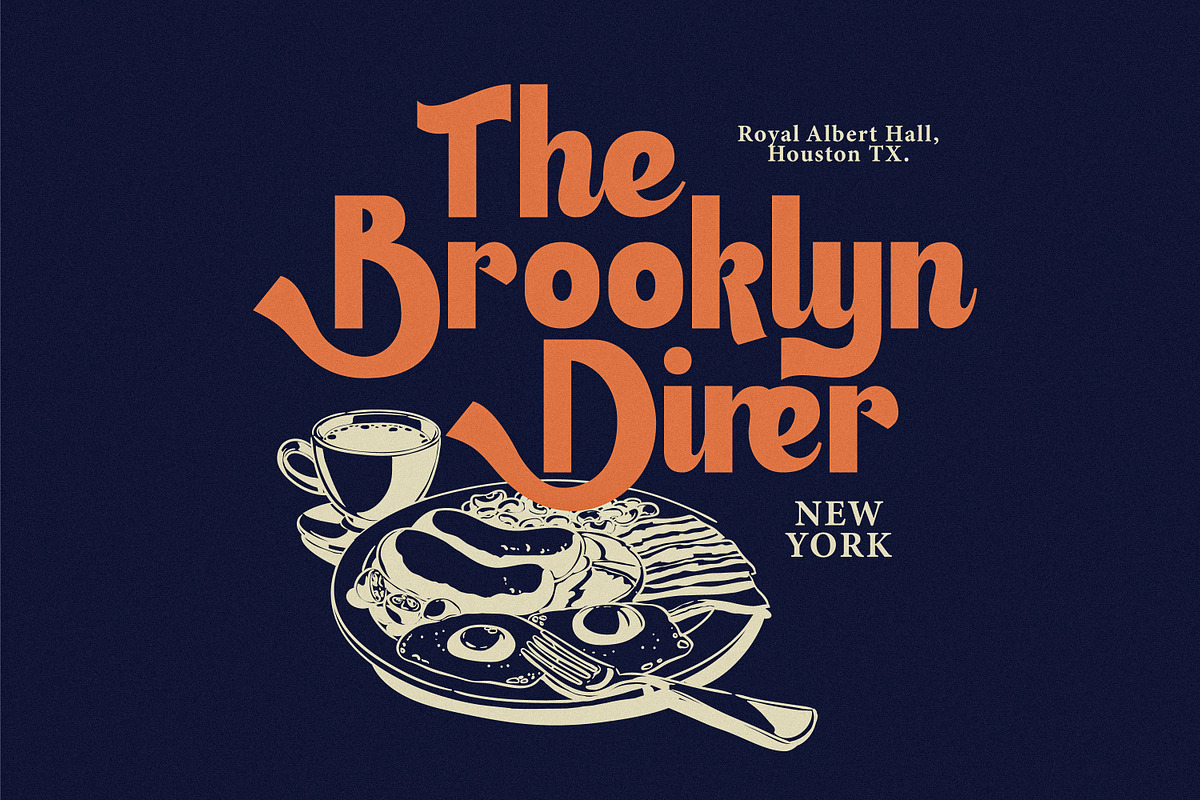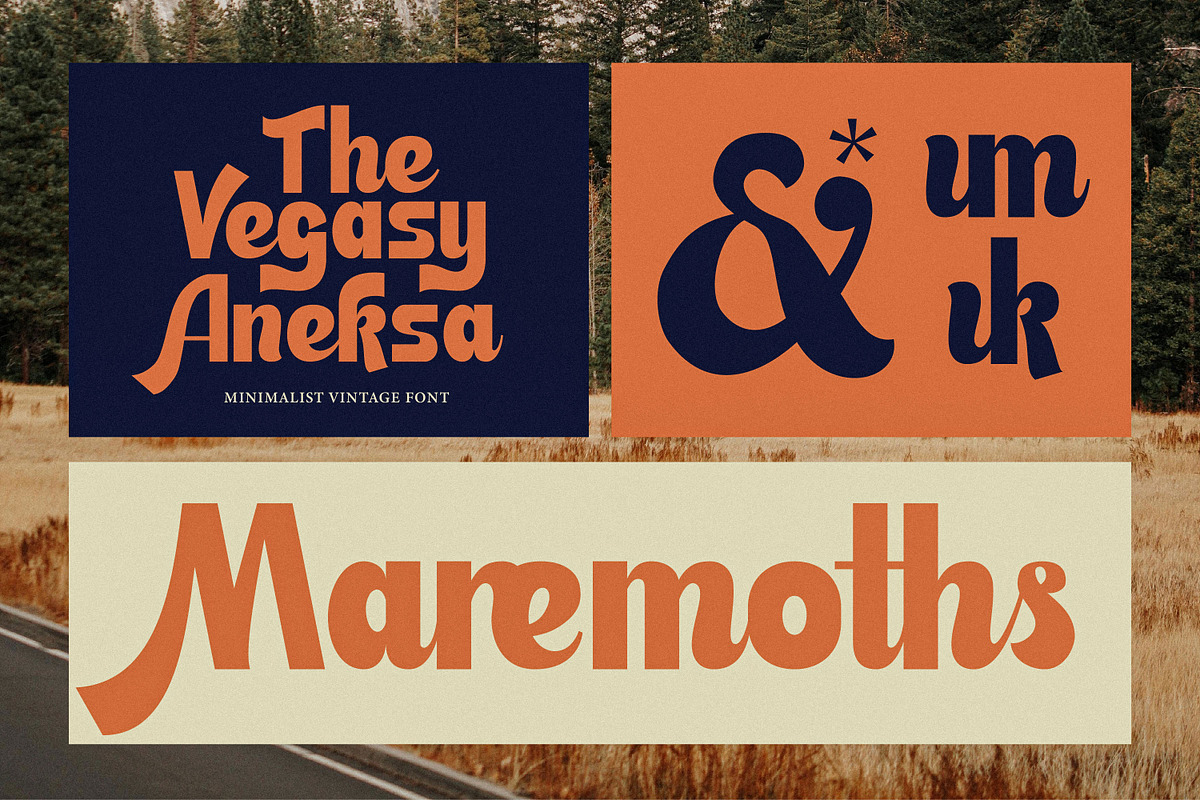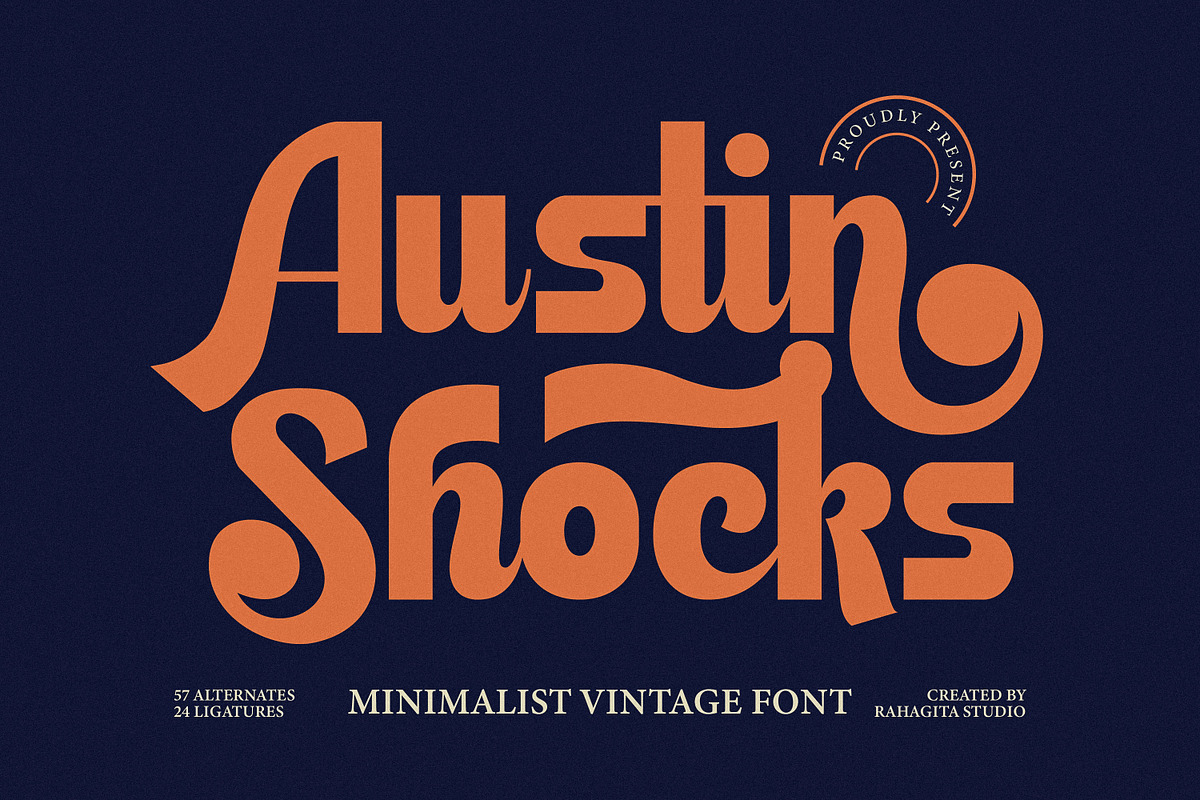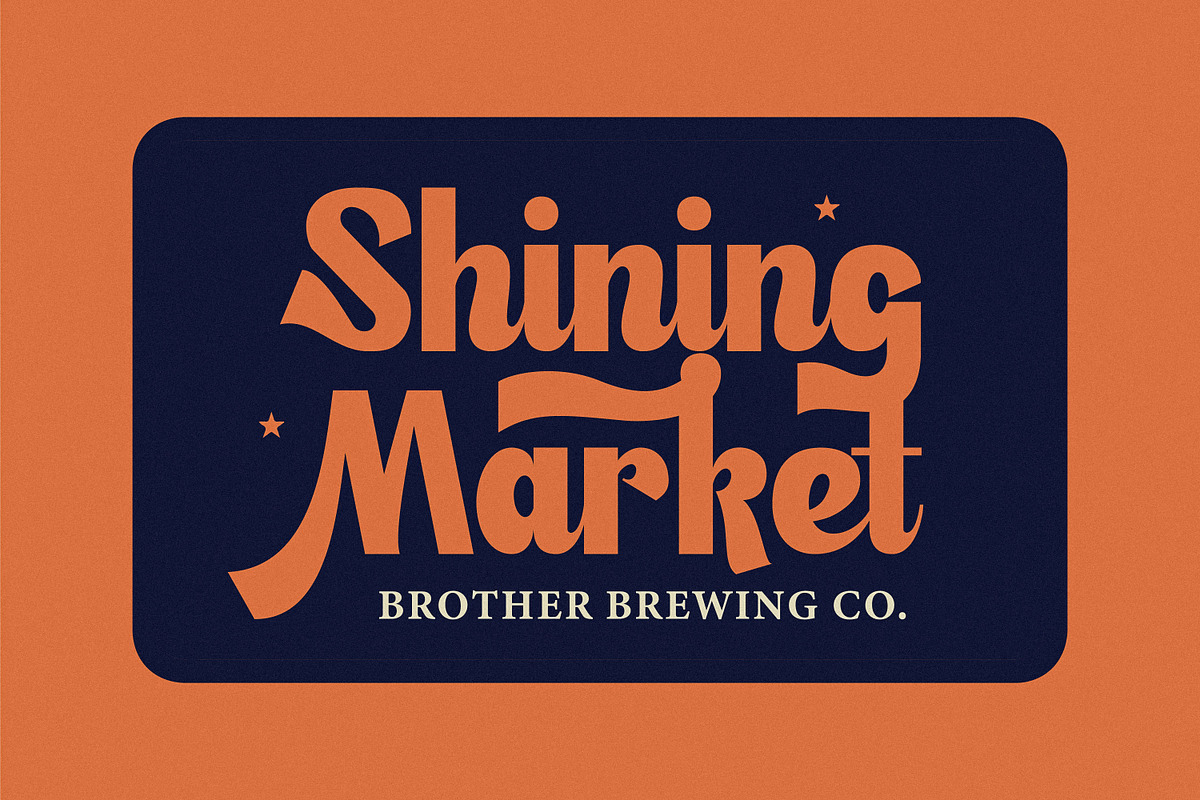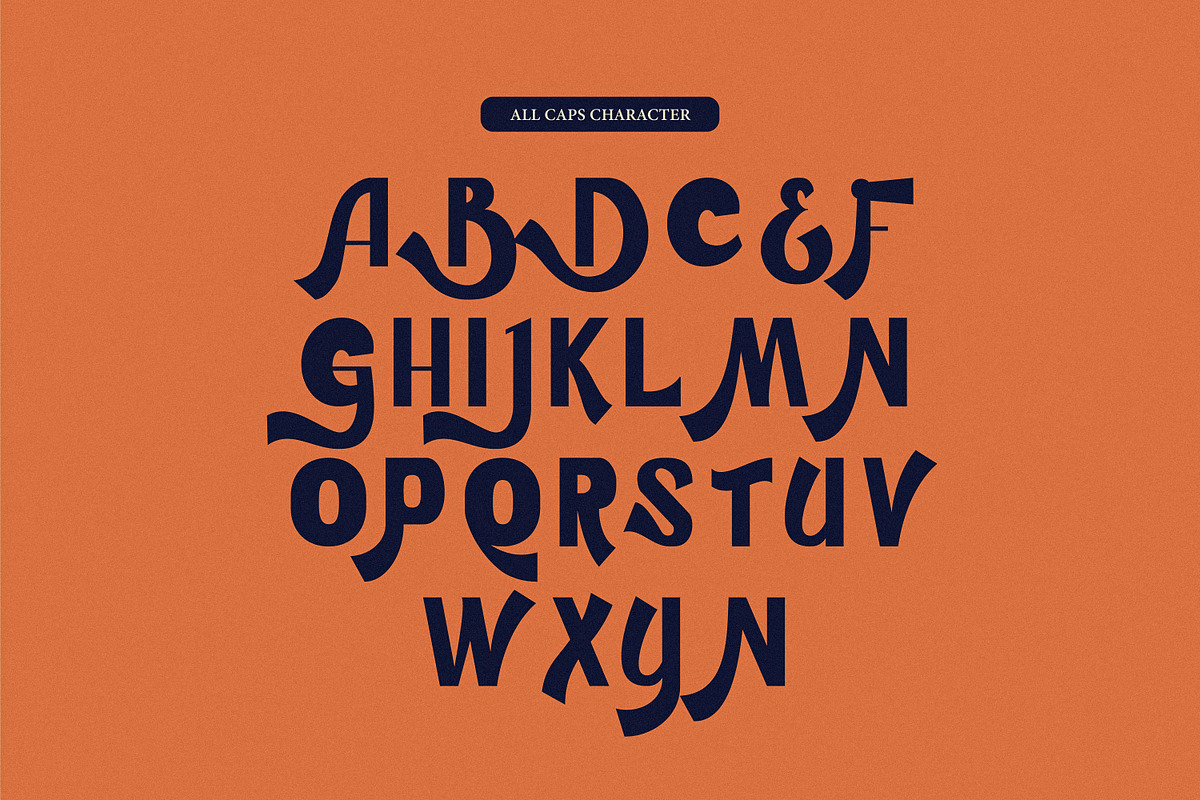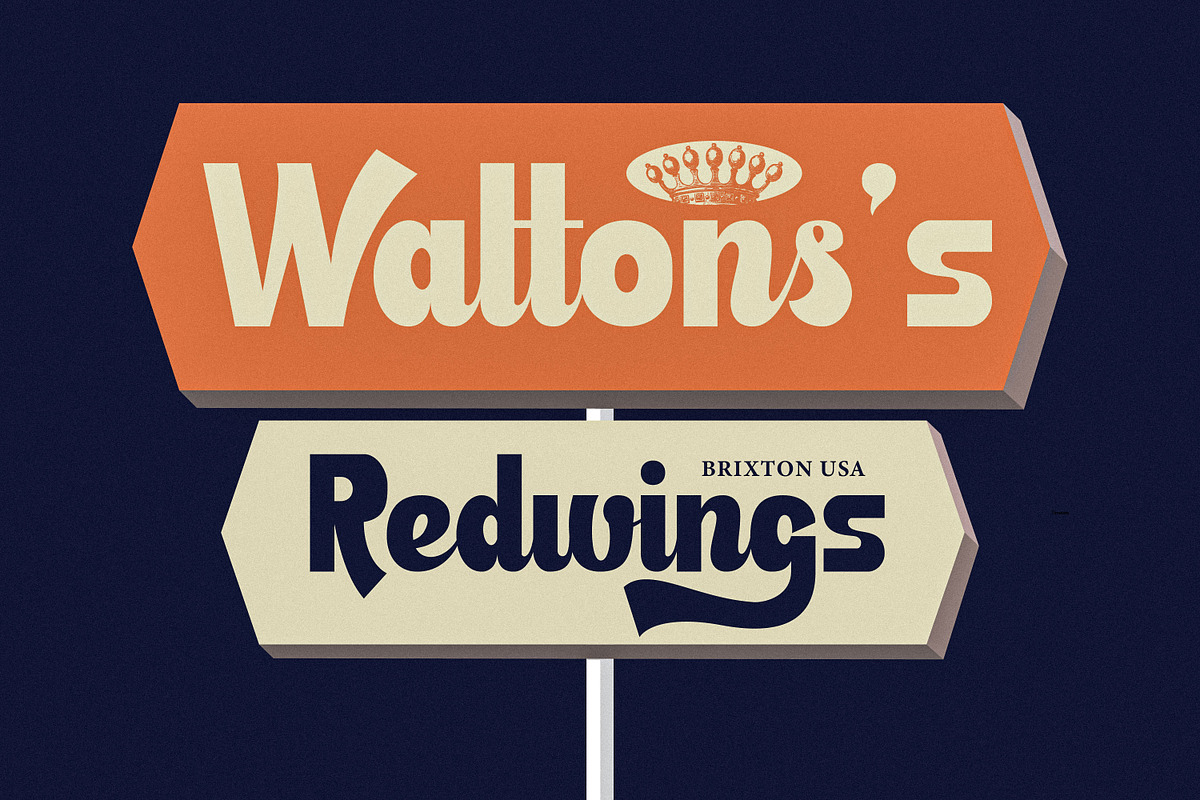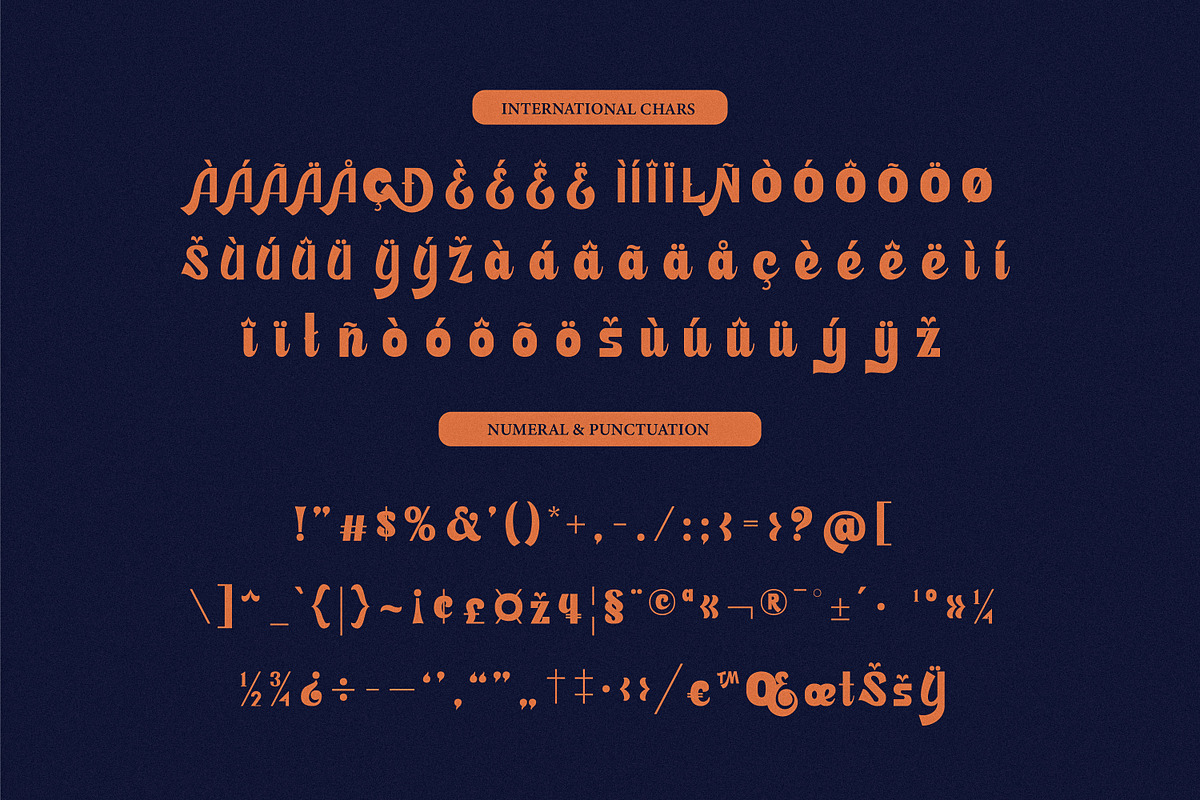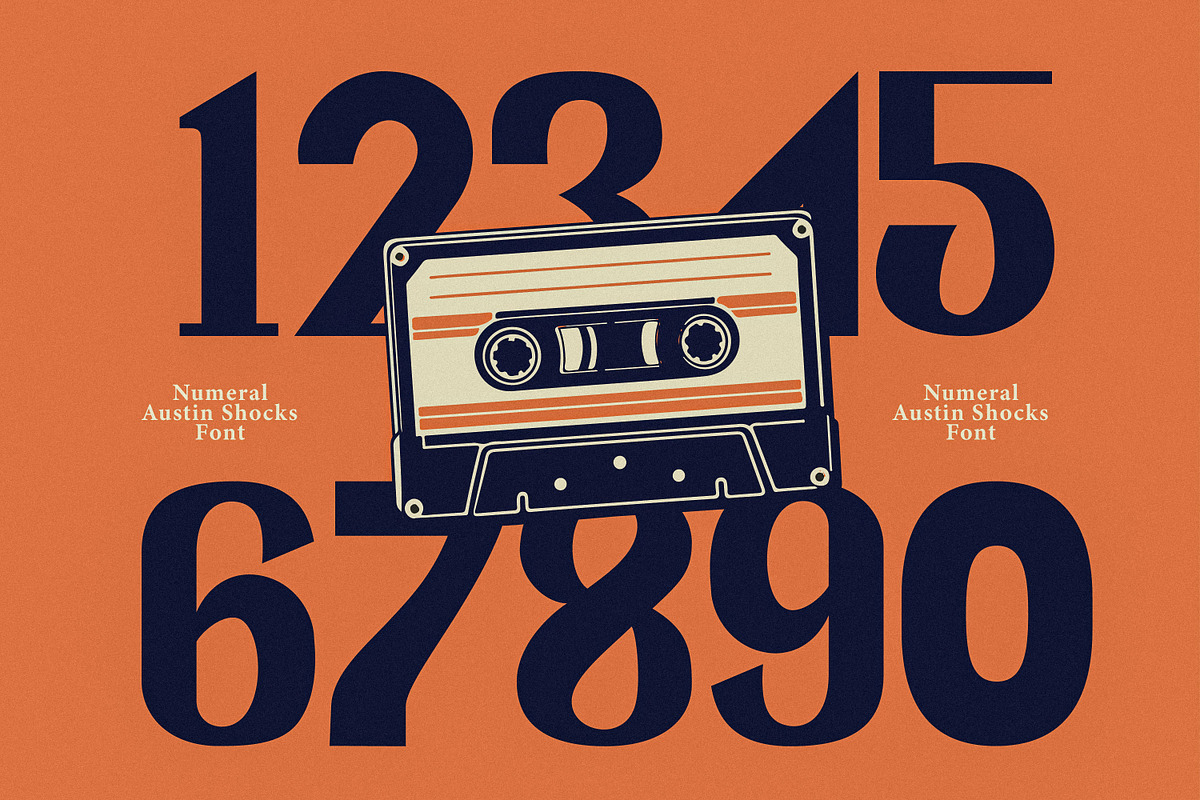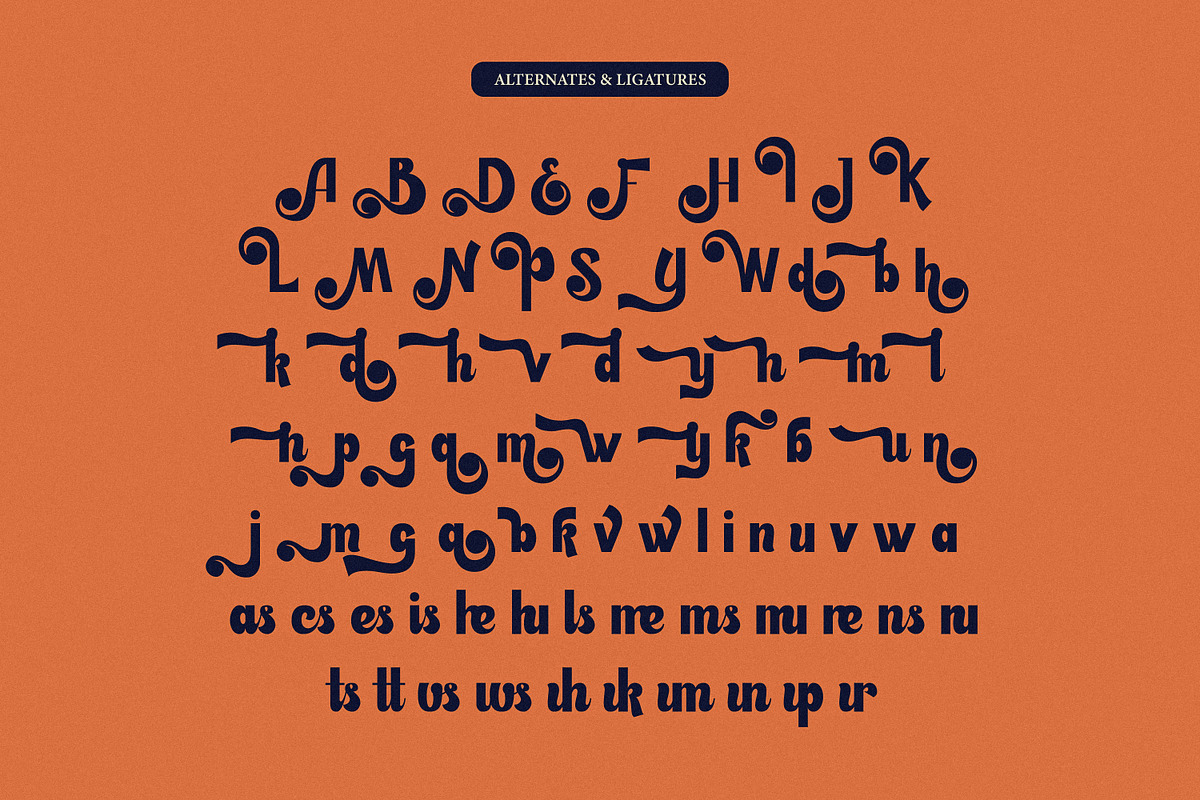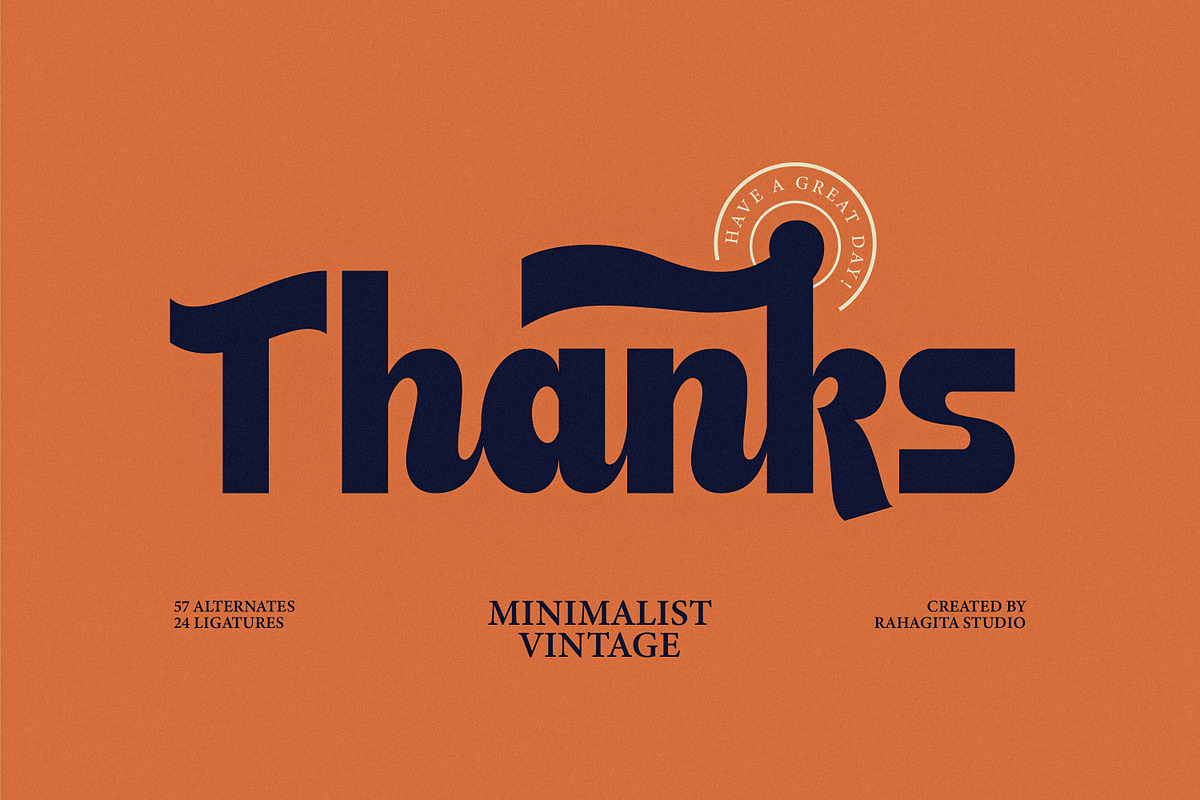
Austin Shocks
Austin Shocks is a minimalist vintage font with a bold yet elegant retro touch. Inspired by the classic vibes of the 70s–80s, this typeface is perfect for branding, logos, posters, packaging, signage, and editorial design.
This font comes with: 57 Alternates 24 Ligatures Unique retro-modern characters
Austin Shocks is designed to bring a sense of nostalgia while staying fresh and versatile, making it the perfect choice for designers who want to add strong character to their visual work.